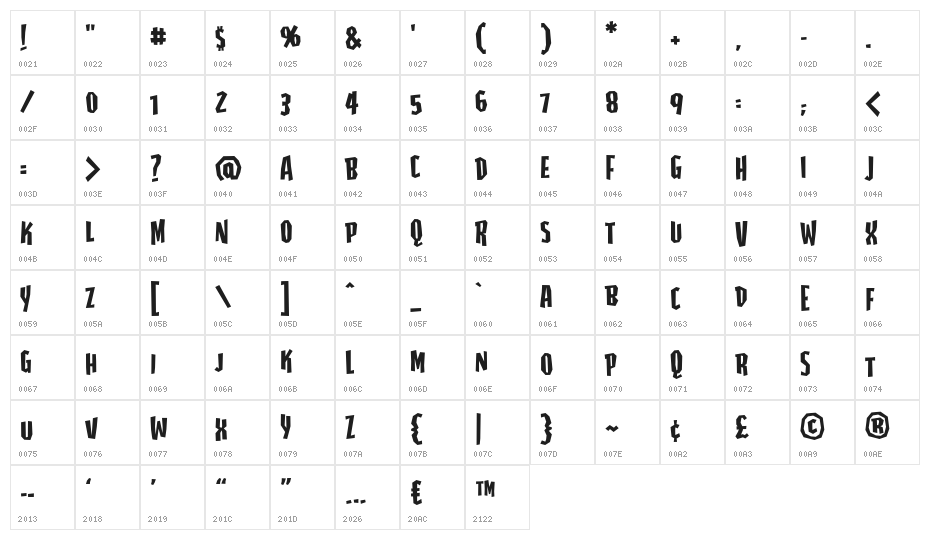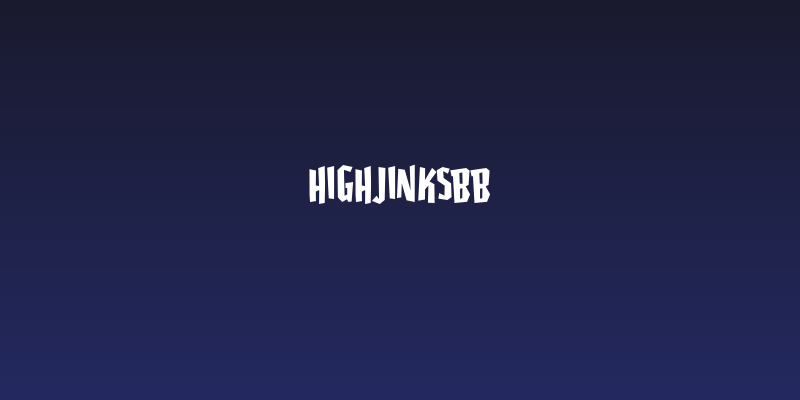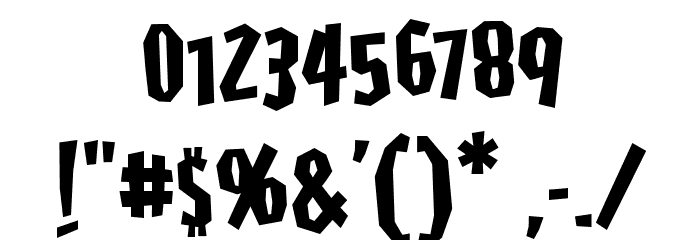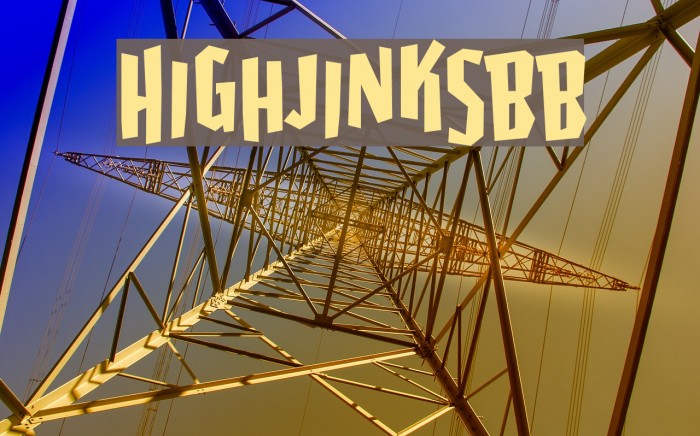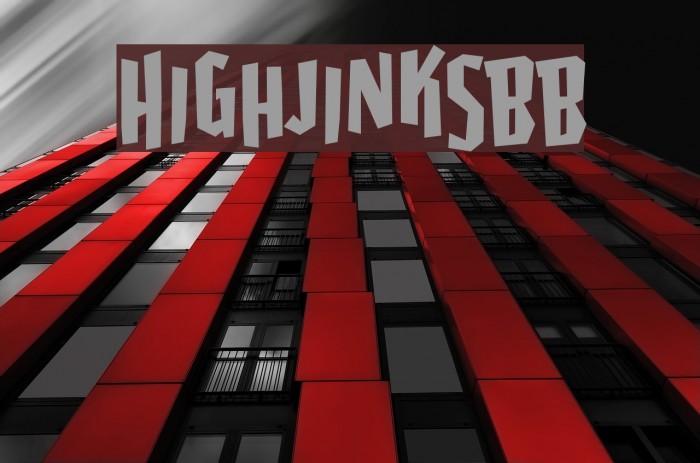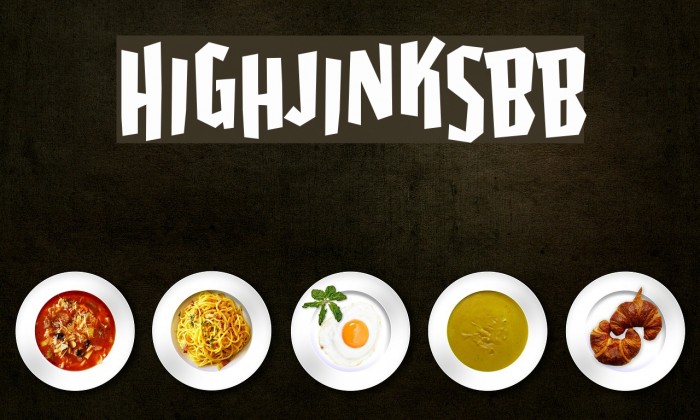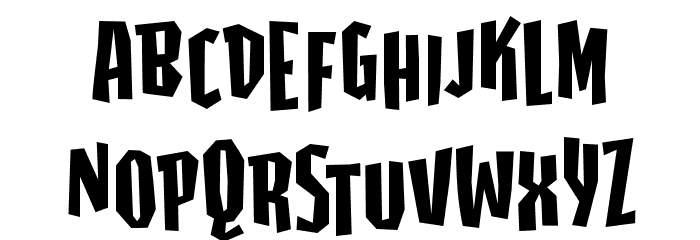
HighjinksBB Font
HighjinksBB Description
This font exudes a playful and bold character with its irregular, jagged edges and dynamic, slightly tilted letterforms. The uppercase and lowercase letters share a consistent style, maintaining a sense of cohesion across the alphabet. The numbers and special characters follow suit, adding to the font's quirky and energetic vibe. The strokes are thick and uneven, giving it a hand-drawn appearance that feels both spontaneous and lively. This font is ideal for projects that require a fun and informal touch, making it suitable for children's books, comic strips, or playful branding materials.
| Overall Style | Playful, Energetic, Hand-drawn |
| Proposed Projects | Children's books, comic strips, playful branding, party invitations, and casual posters. |